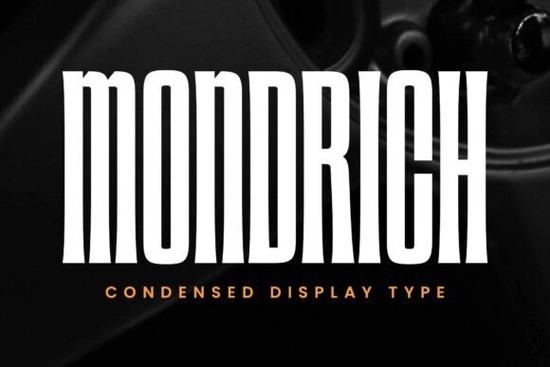
If you're working on a design that needs to make a bold statement without taking up much horizontal space, Mondrich Font is worth a closer look. This ultra-condensed sans-serif typeface combines tall proportions, strong weight, and subtle widened stroke tips to create a clean yet commanding presence. It’s especially useful when you’re tight on layout room but still want your text to stand out think movie posters, tech branding, or sportswear graphics.
What makes Mondrich different from other condensed fonts?
Many condensed fonts sacrifice legibility or personality for narrowness, but Mondrich avoids that trap. Its vertical emphasis gives it an architectural feel, while the slightly flared stroke ends add just enough flair to keep it from feeling sterile. The result is a font that feels both modern and timeless a rare balance that works across styles like vintage, futuristic, and minimalist design.
You’ll find two styles in the family: Regular and Slanted. Both maintain the same structural confidence, but the slanted version adds motion and energy, making it ideal for dynamic contexts like video game titles or athletic apparel.
Where does Mondrich work best?
Because of its strong visual impact and narrow footprint, Mondrich shines in headline roles:
- Logos for startups, especially in tech or engineering fields
- Poster and flyer headlines where space is limited but presence matters
- Motion graphics that need sharp, readable typography at large sizes
- Apparel designs for sports teams or streetwear brands
- Magazine mastheads in architecture, design, or lifestyle publications
It’s not meant for body text its condensed nature would hinder readability in long passages but as a display font, it delivers clarity and style even at small point sizes when used thoughtfully.
How to pair it with other fonts
Mondrich’s narrow build creates natural contrast when paired with wider, more open typefaces. A good rule of thumb: choose a secondary font with generous letter spacing and lighter weight to let Mondrich dominate the visual hierarchy without overwhelming the layout.
For example, if you’re designing a brand identity, try combining Mondrich for the logo or headlines with something like Valtora, a spacious sans-serif that offers excellent legibility in supporting text. Or, if you prefer a classic pairing, a neutral grotesque or humanist sans-serif can provide balance without competing for attention.
Avoid pairing it with other condensed or highly stylized fonts too much visual tension can muddy your message.
Why designers love its technical features
It also performs consistently across digital and print media. Whether you’re creating a website hero banner or screen-printing a t-shirt, the font holds up well at various sizes and resolutions.
Is Mondrich right for your next project?
If your design calls for something bold, space-efficient, and visually distinctive without veering into gimmicky territory Mondrich is a smart choice. It’s particularly effective when you want to convey precision, innovation, or strength. And because it bridges multiple aesthetics (from retro to sci-fi), it adapts well to evolving brand directions.